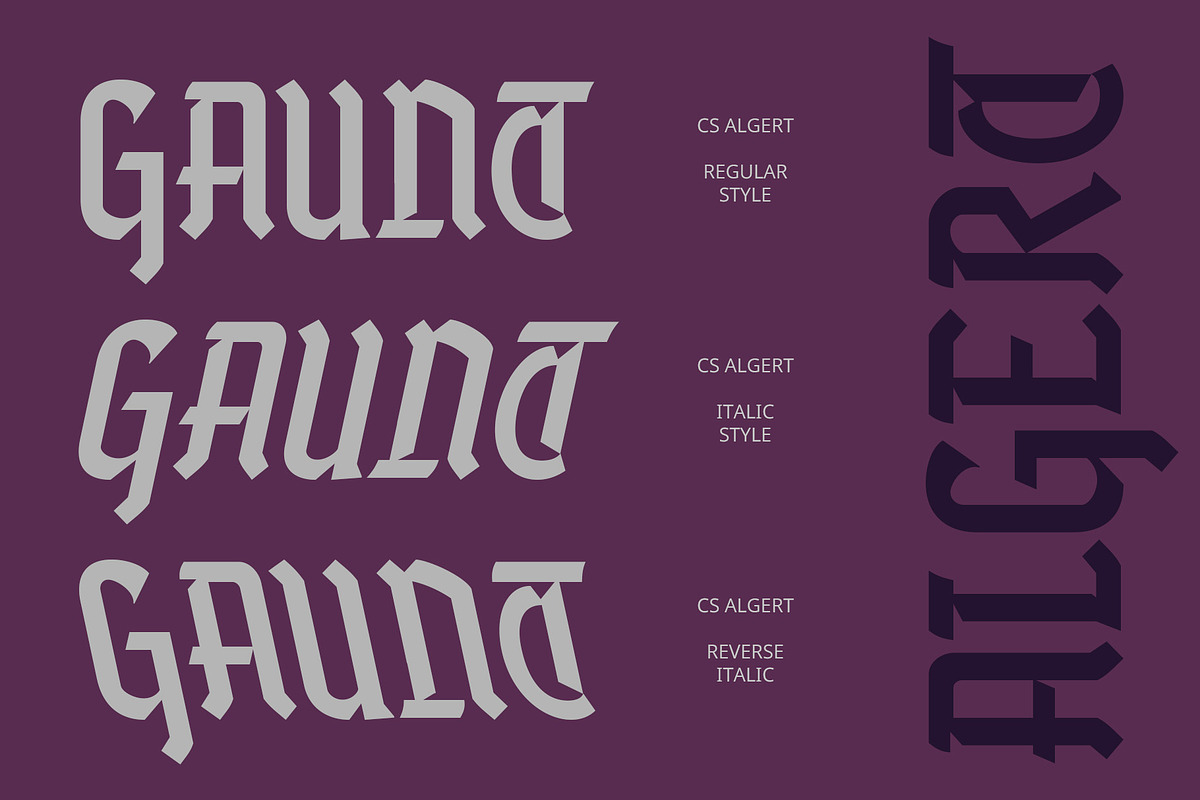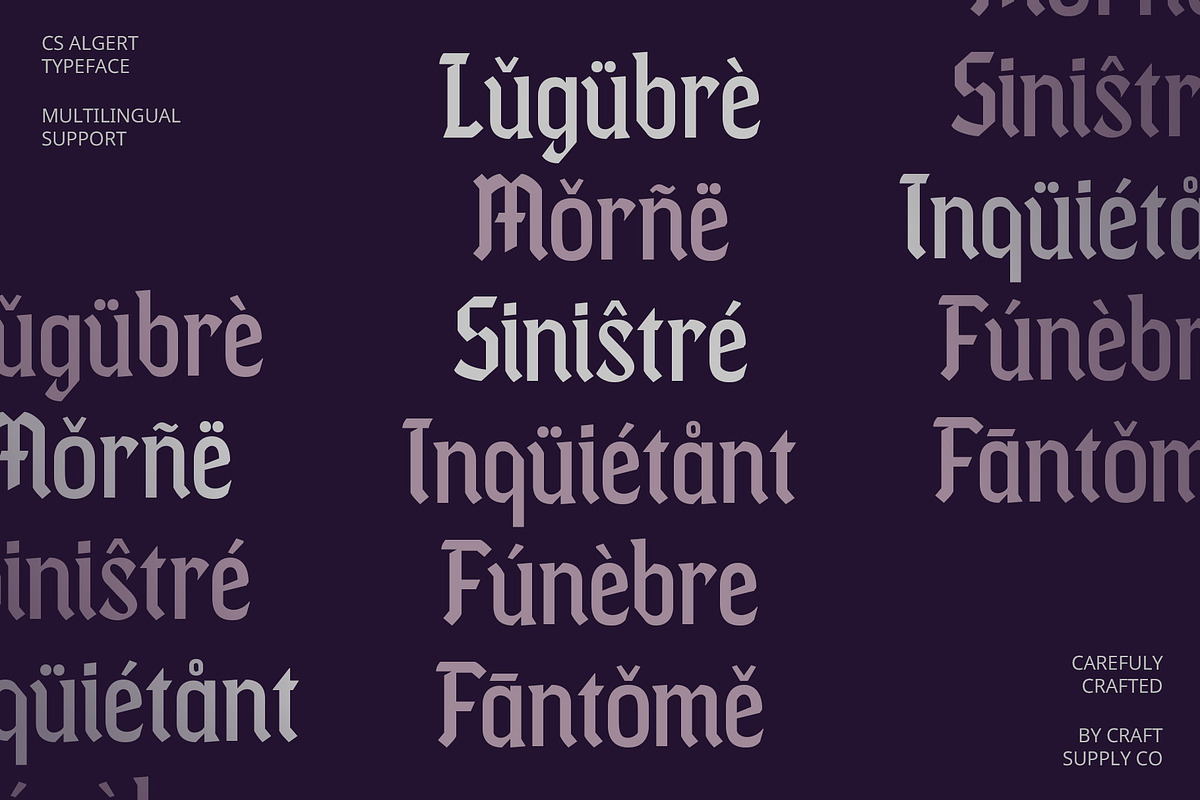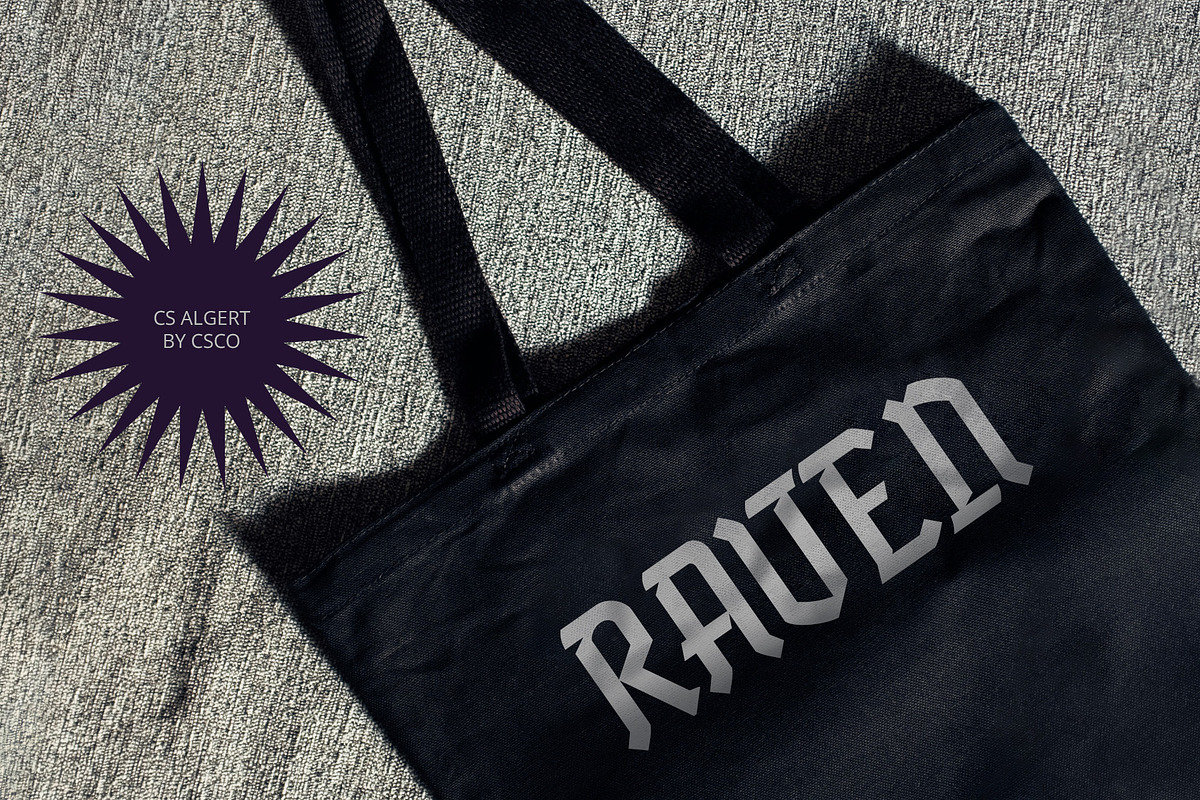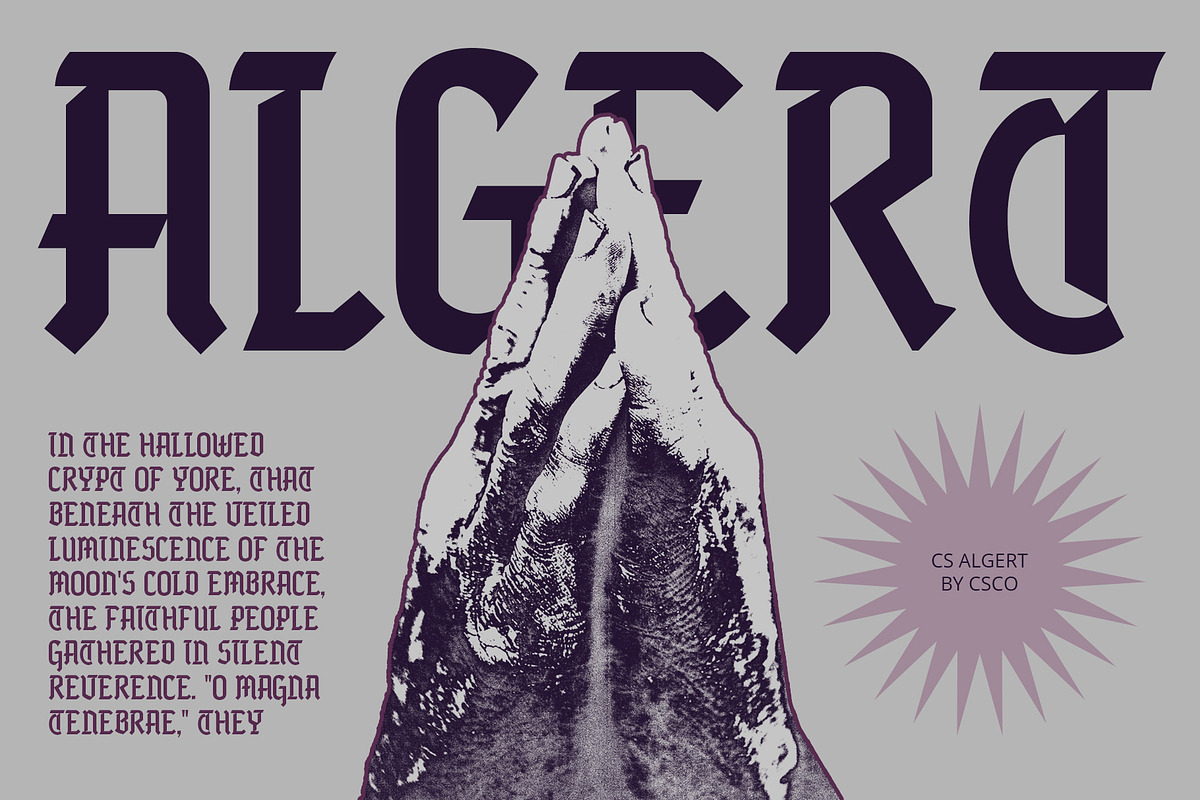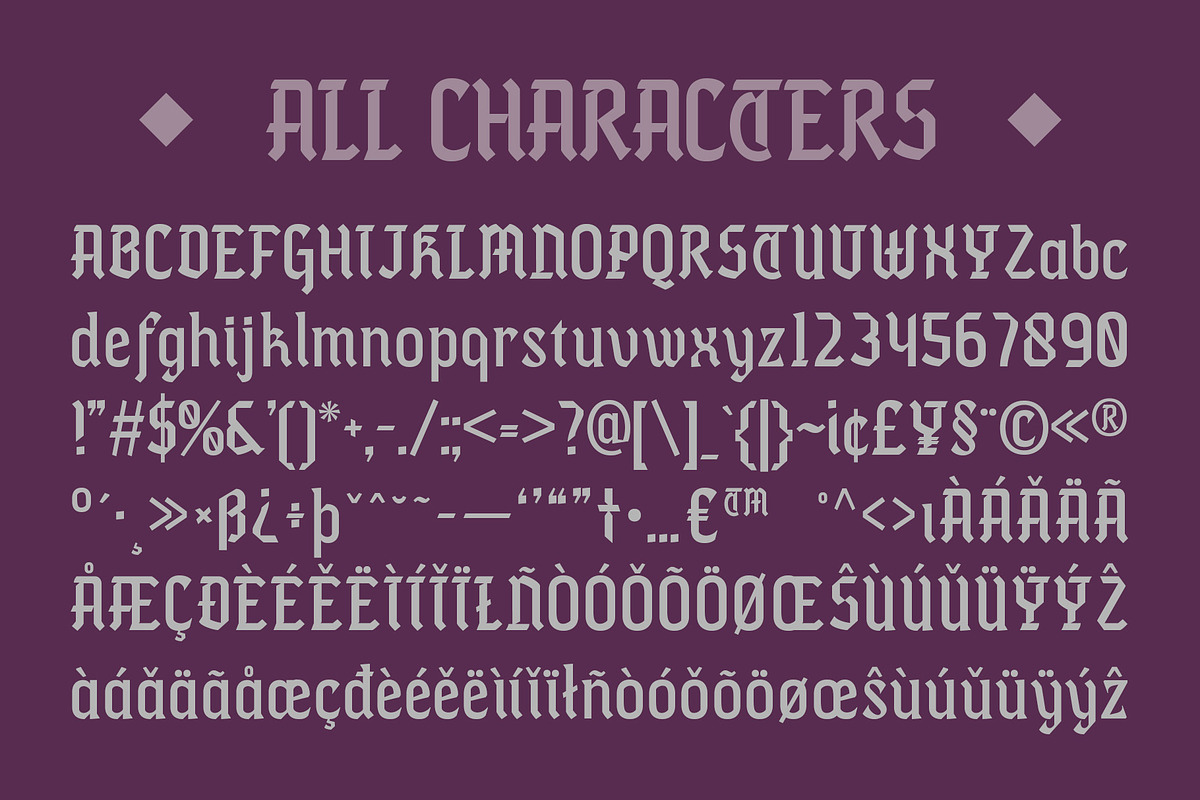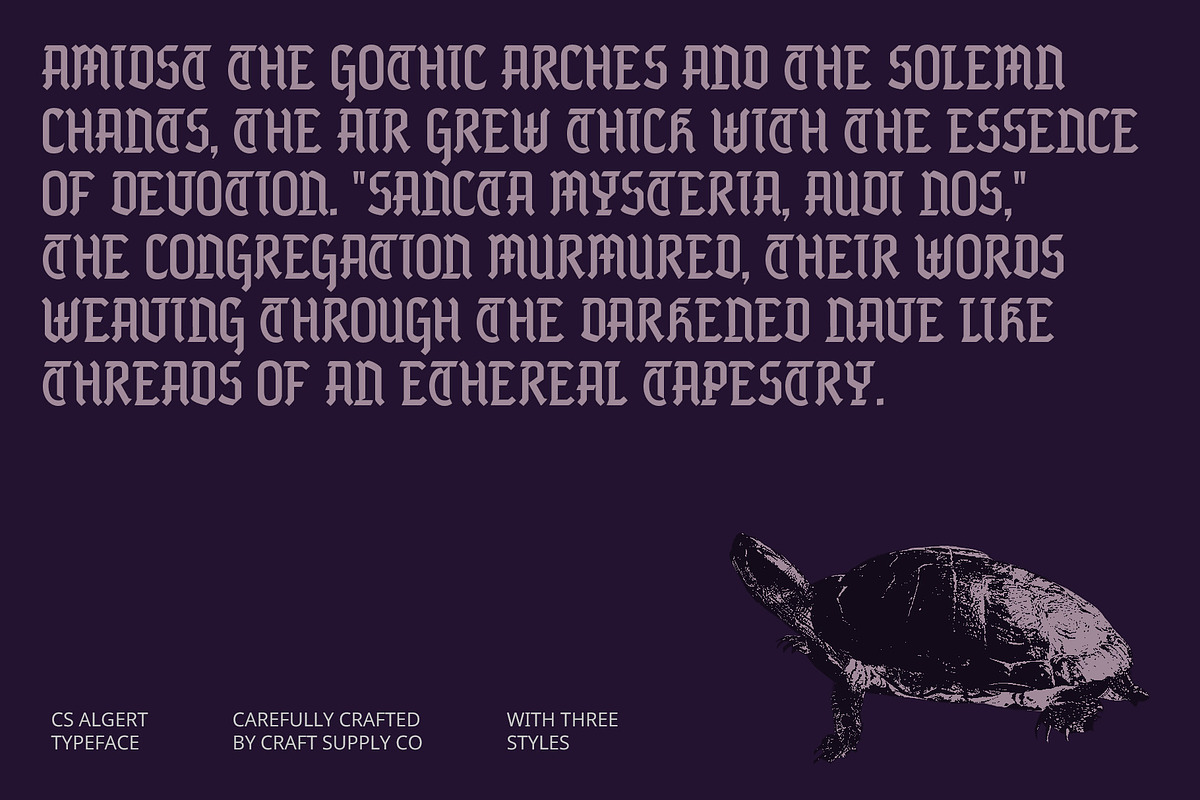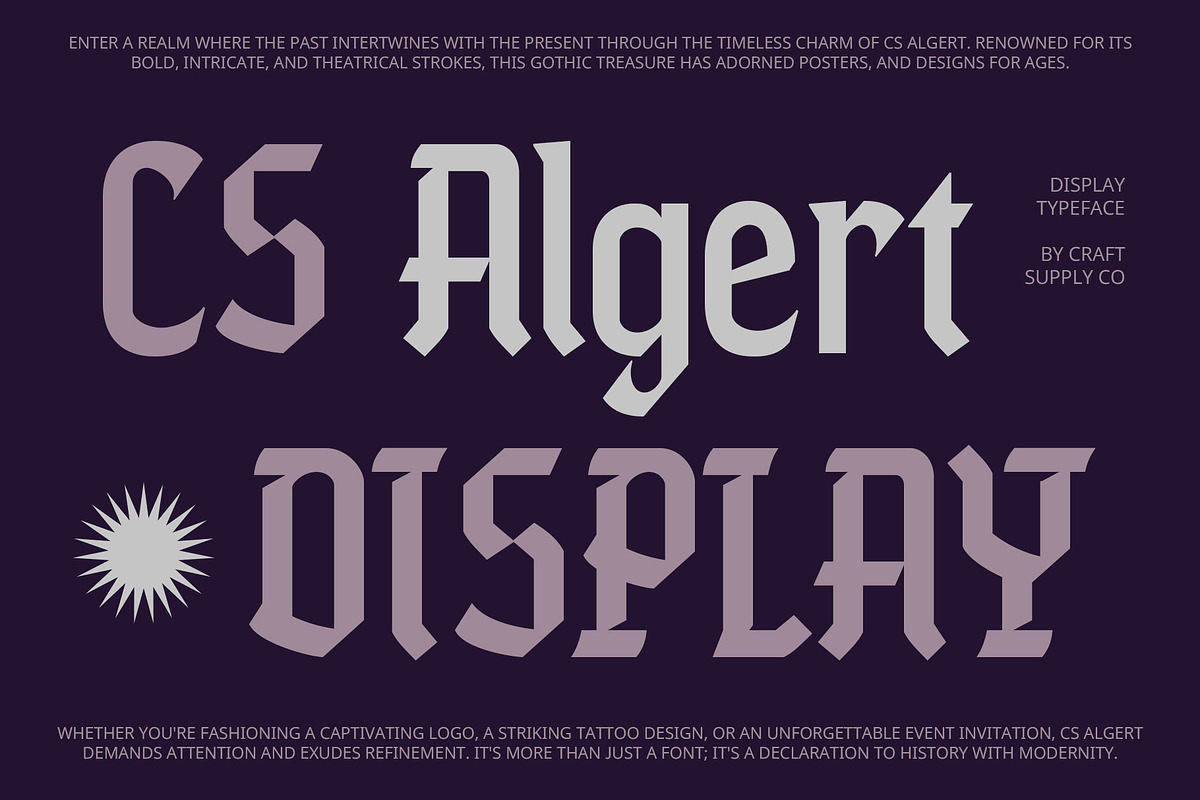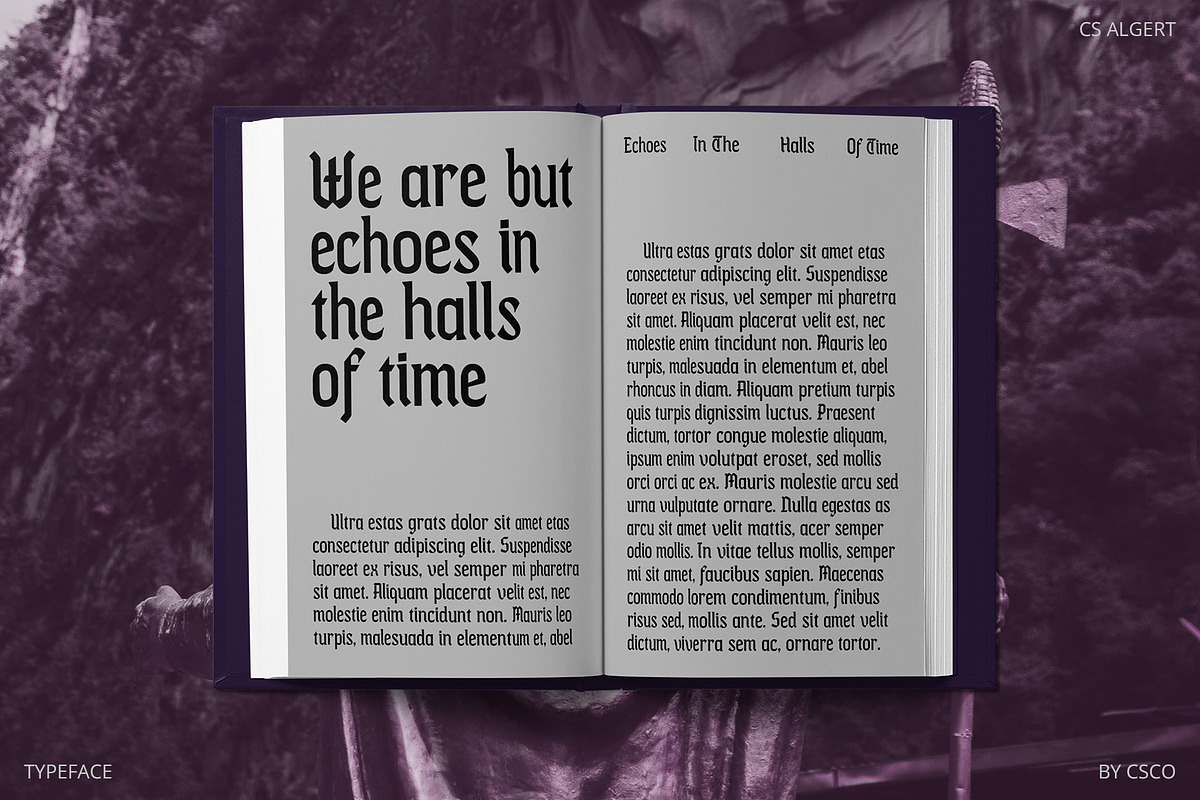
CS Algert – Blackletter Font
CS Algert – Modern Blackletter Font with a Contemporary Twist
Traditional Elegance with a Modern Edge CS Algert reimagines the classic Blackletter style by combining its traditional, ornate elements with a contemporary twist. This modern Blackletter display serif font brings together historical grandeur and intricate artistry with a refreshed, modern appearance, creating a dramatic and sophisticated visual impact.
Ornate Letterforms for High-Impact Design The font’s ornate letterforms offer a striking and sophisticated look, perfect for high-impact designs that require a blend of tradition and modernity. Its elaborate details are ideal for projects like headlines, luxury branding, and themed event materials, where elegance and a touch of historical sophistication are essential.
Versatile for Luxury and Themed Projects CS Algert is particularly well-suited for designs that aim to evoke a sense of classic grandeur while incorporating a modern edge. Its dramatic and refined appearance makes it a versatile choice for creating standout visuals in luxury branding, high-profile headlines, and exclusive event materials.
Blending Tradition with Contemporary Design By melding the traditional elements of Blackletter with contemporary style, CS Algert offers a unique and engaging typeface that maintains the rich historical essence of the original Blackletter while adding a modern, sophisticated flair. This font provides the perfect balance of classic elegance and modern innovation for your design needs.
- CS Algert Regular
- CS Algert Italic
- CS Algert Reverse Italic